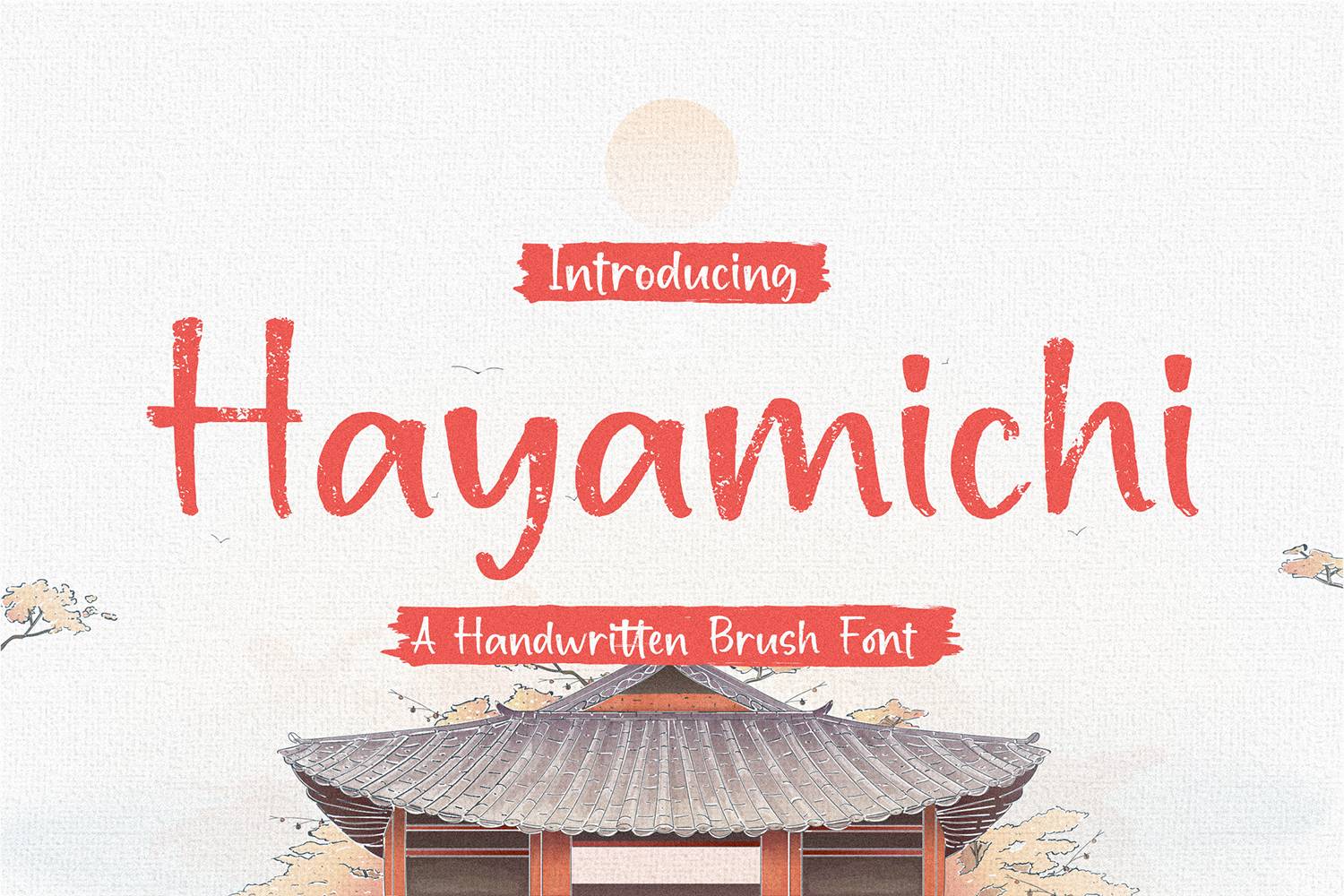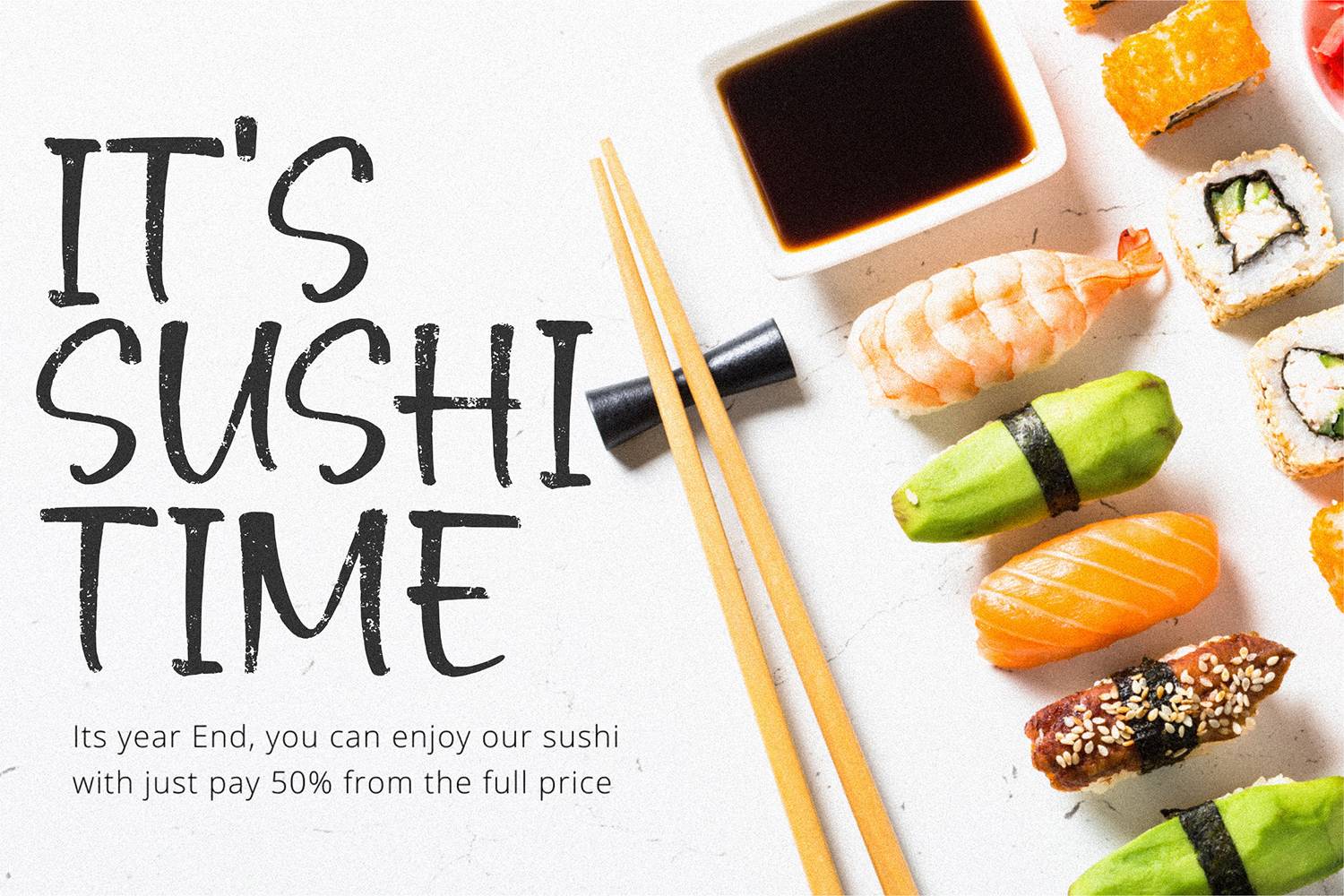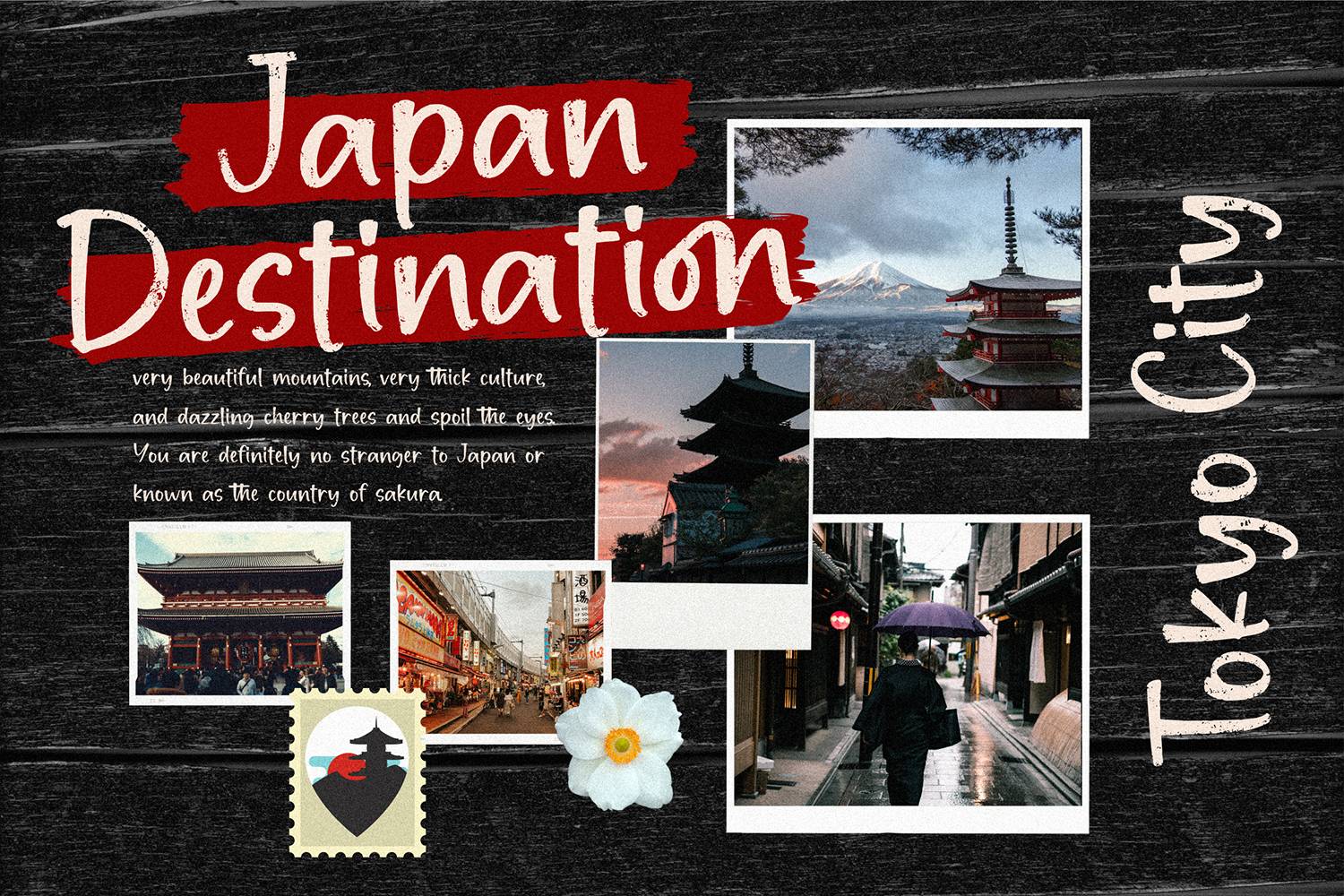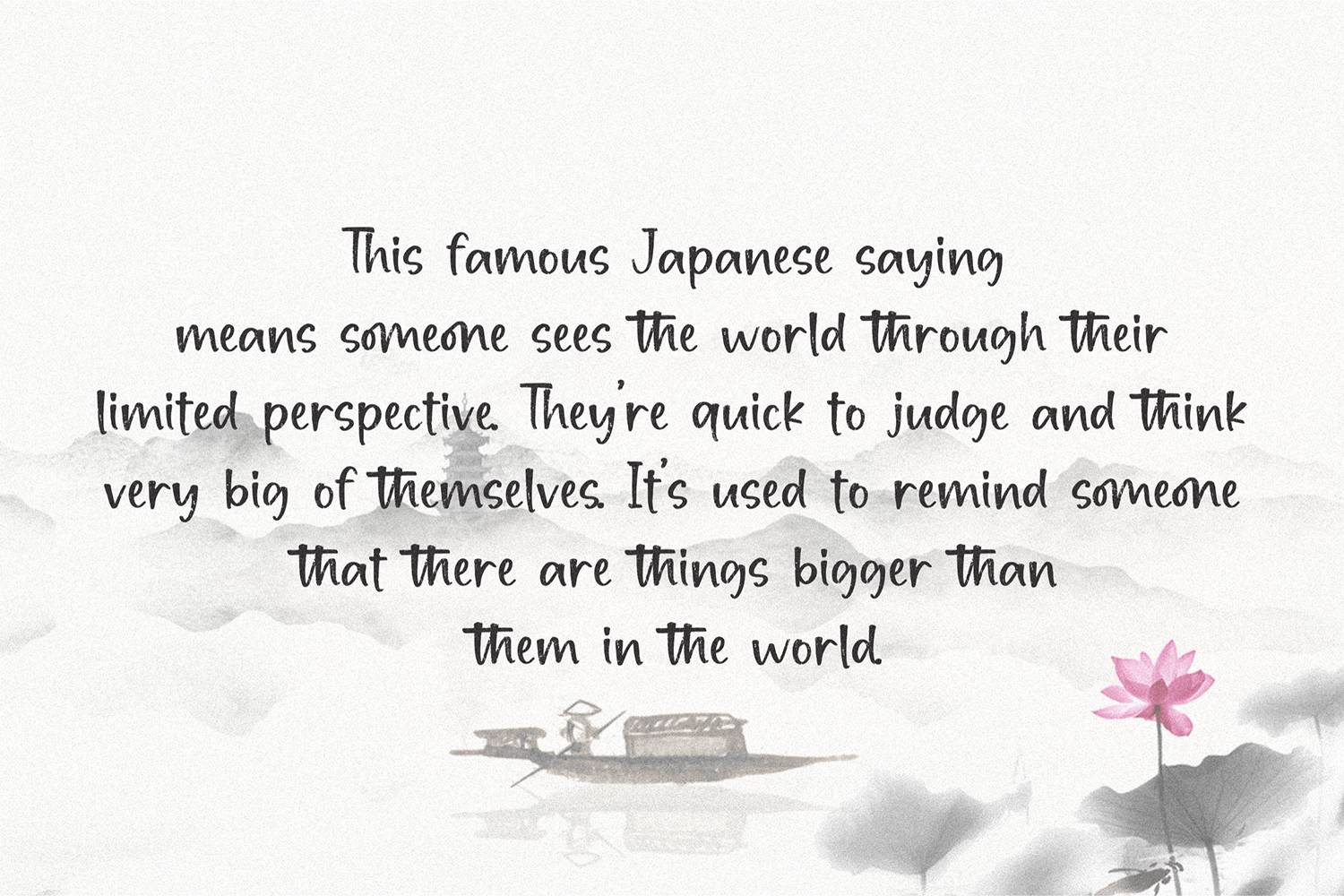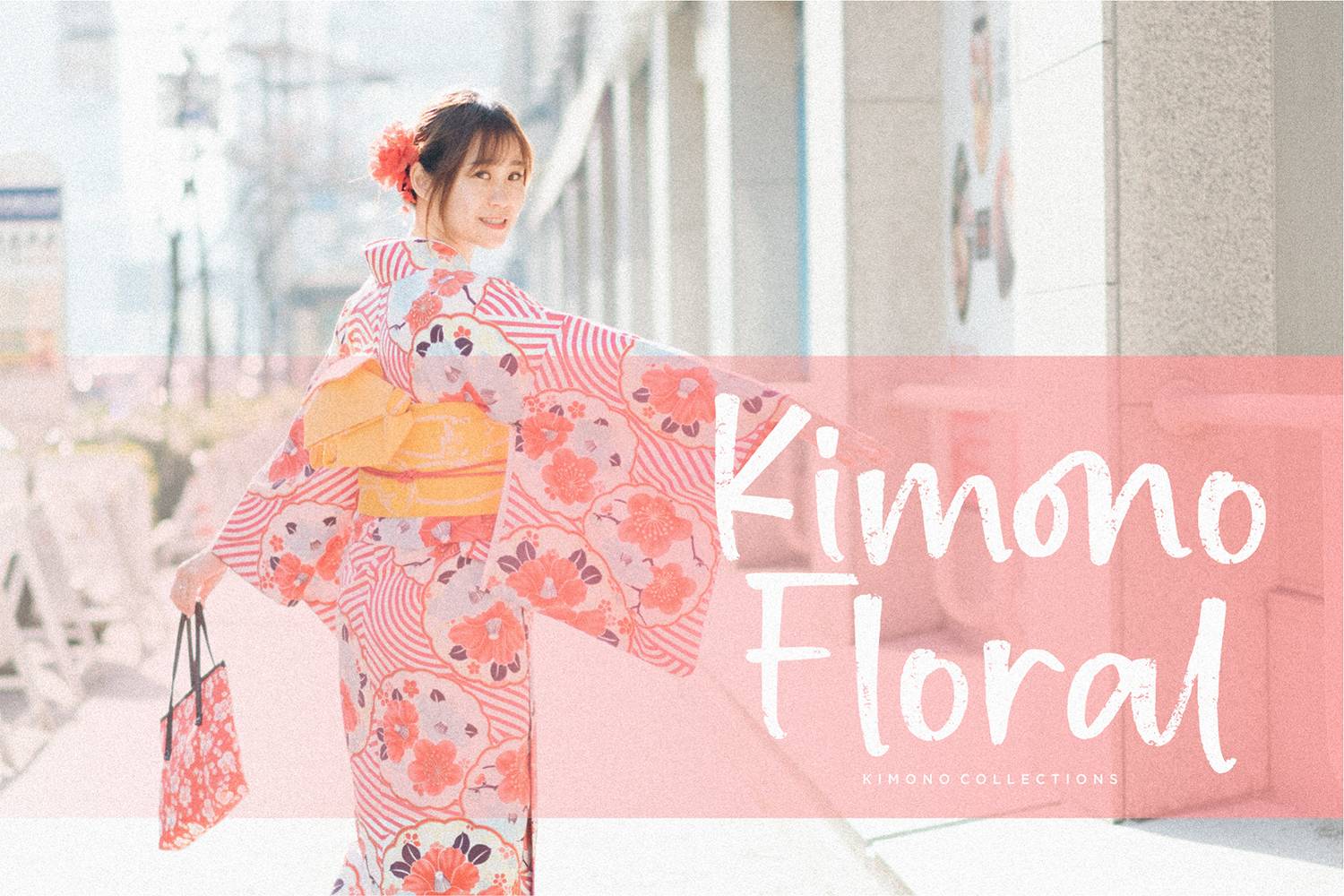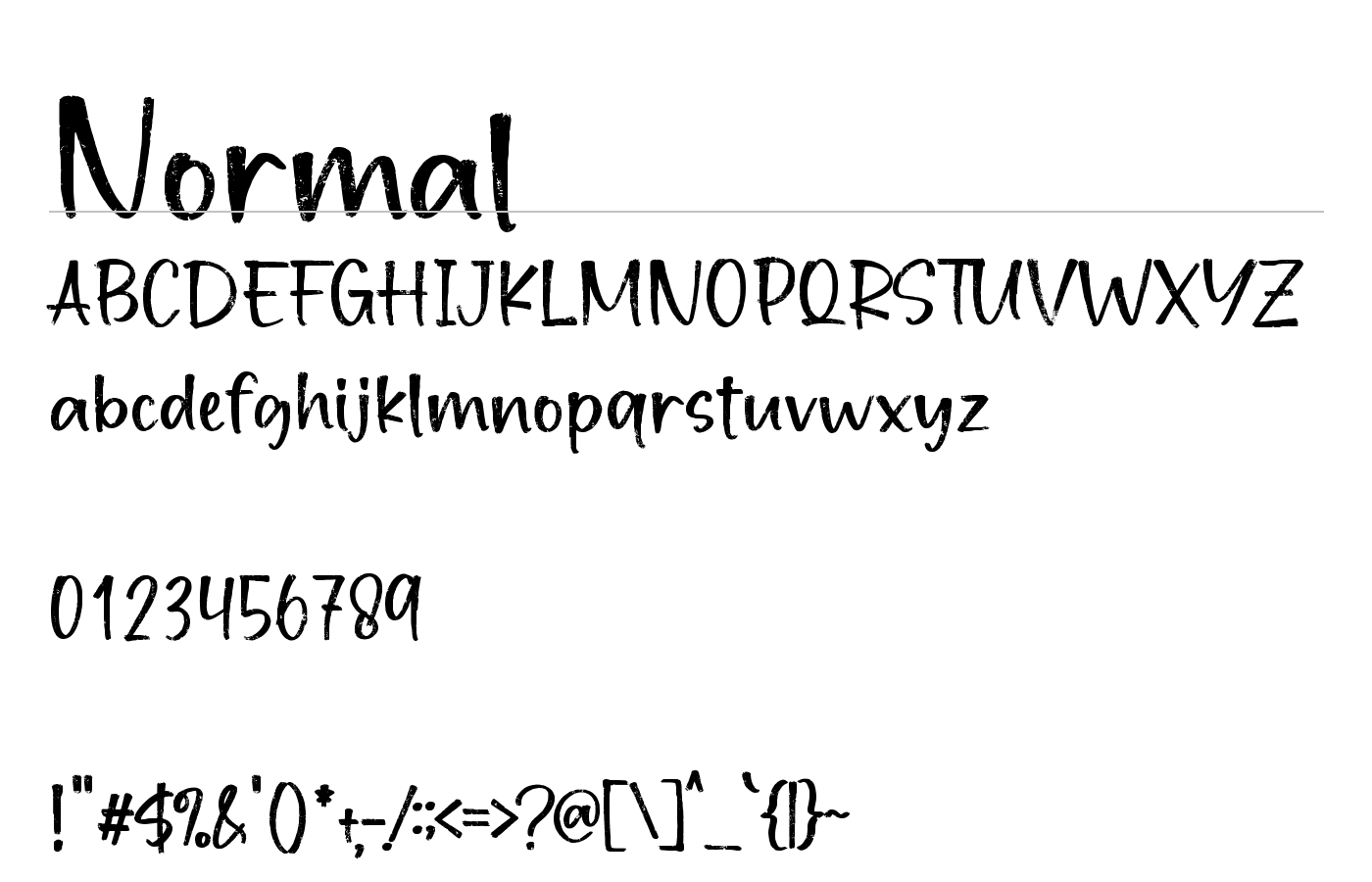
Hayamichi Font is a lively and textured handwritten sans serif that feels casual and expressive. Its uneven strokes and playful irregularities give it an organic, artistic vibe, making it perfect for creative projects, informal branding, and designs that want a personal, approachable touch. This font works well in headlines, posters, and packaging where a natural, handcrafted feel is desired.
Hayamichi Font